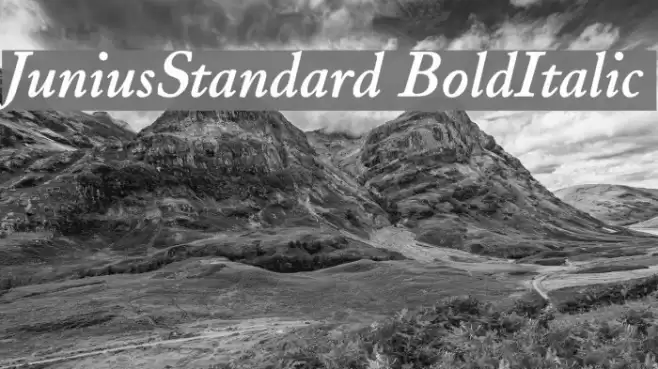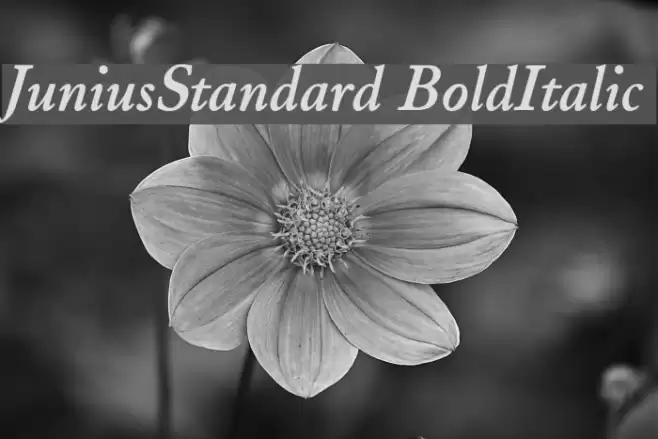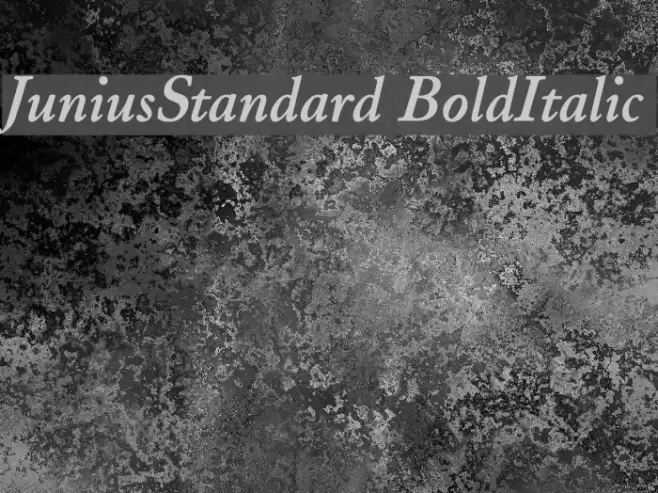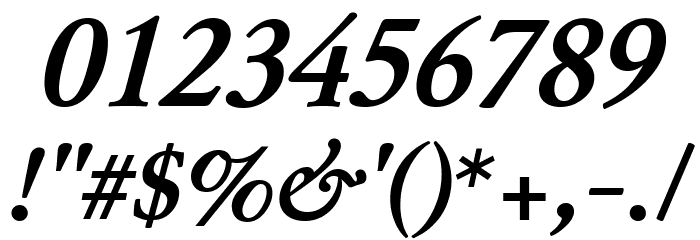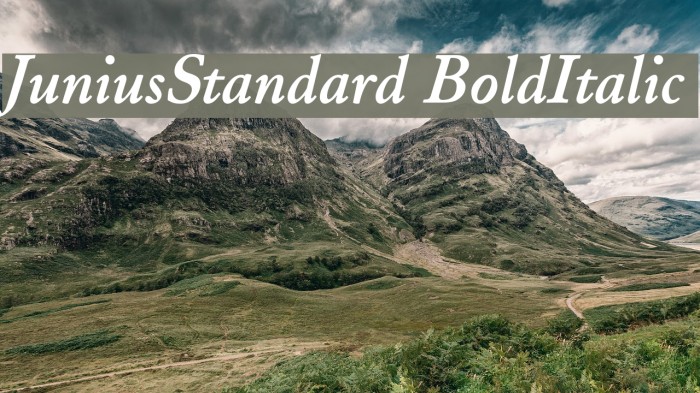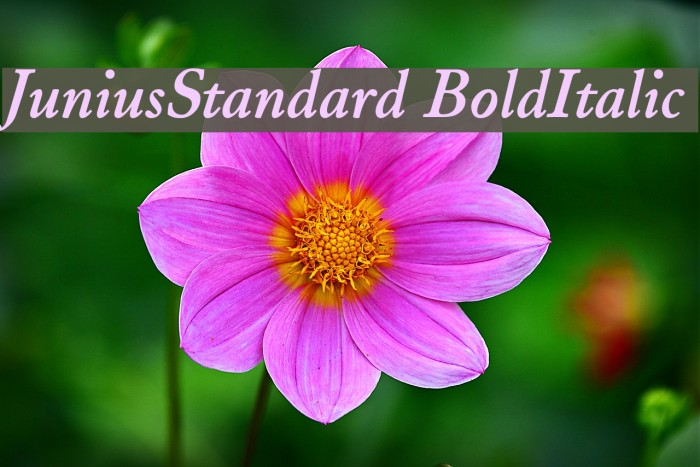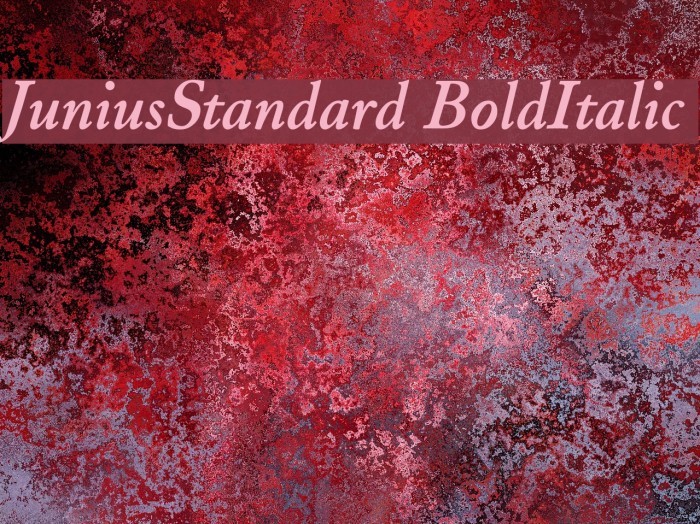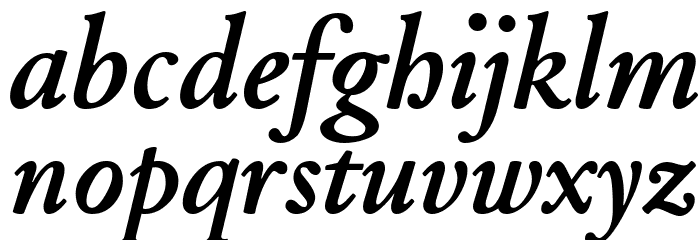
JuniusStandard BoldItalic Font
JuniusStandard BoldItalic Description
This font exhibits a classic and elegant style with a bold and italicized appearance. The uppercase letters are slightly slanted, adding a dynamic and sophisticated touch. The lowercase letters maintain a consistent flow, enhancing readability while preserving the font's distinctive character. The numerals are clear and well-proportioned, making them suitable for various applications. Special characters are designed with attention to detail, ensuring they complement the overall aesthetic. The font's bold weight and italic style make it ideal for creating emphasis in text, while its classic design lends itself to a wide range of uses.
A bold, italicized serif font with a classic and elegant style from Uncategorized fonts.
- Proposed Projects: Ideal for book covers, formal invitations, branding, and editorial design.
- Italic: Yes
- Overall Style: Classic
- Use Case: Headlines, Body text, Logos